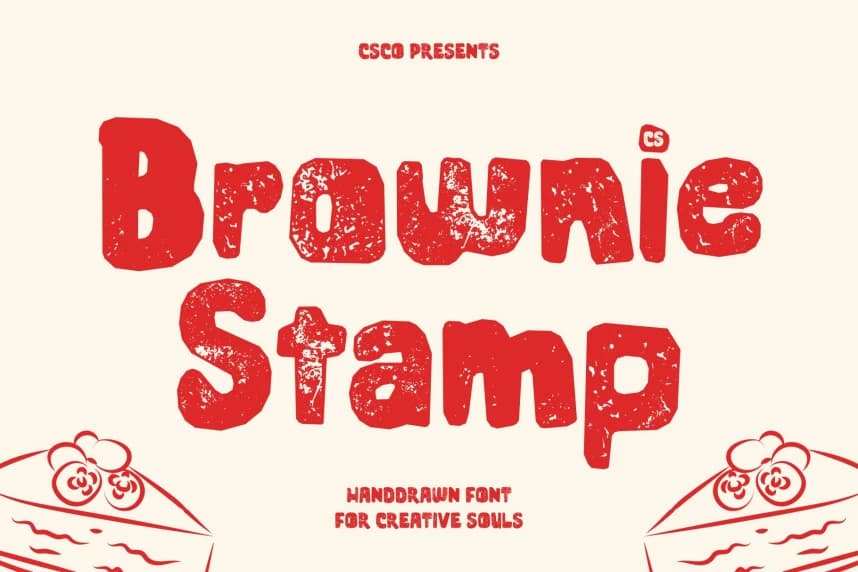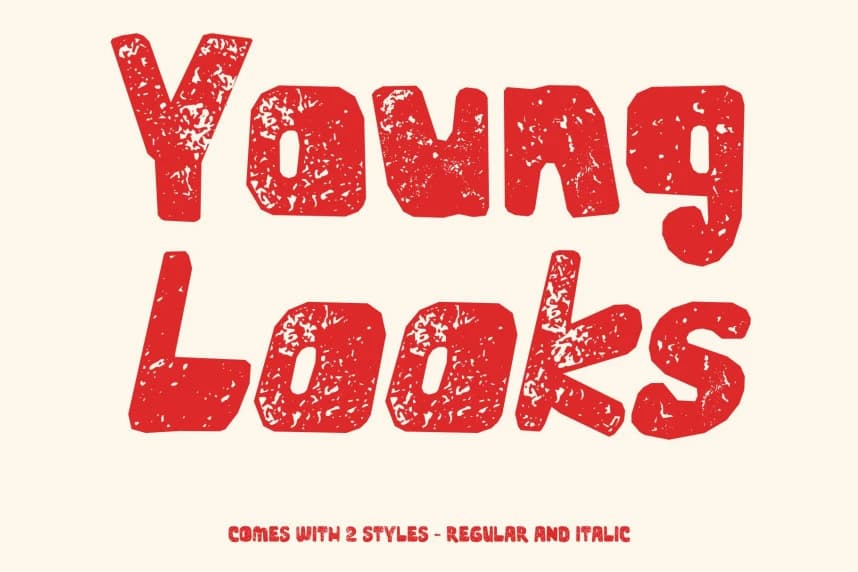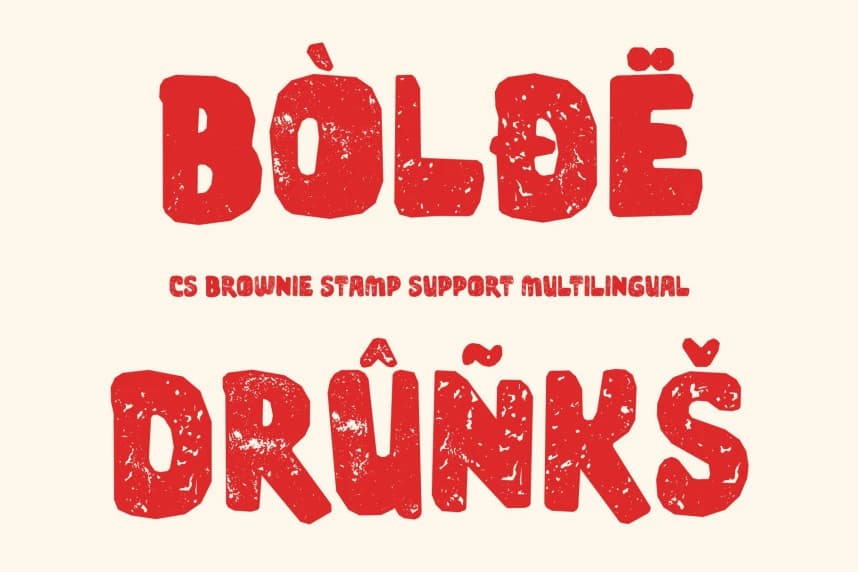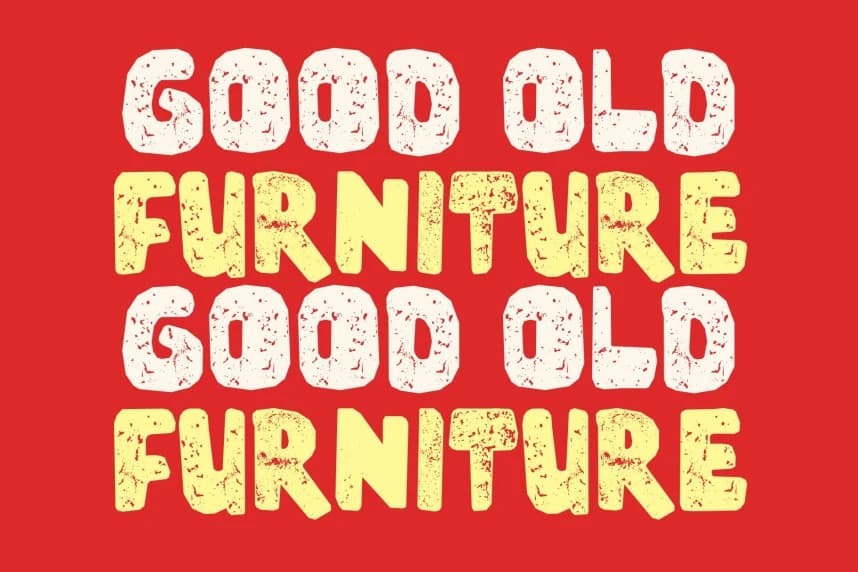
CS Brownie Stamp Font
CS Brownie Stamp Font – Funky Playfulness with Textured Charm A Bold Expression of Joy and Whimsy. This is a modern display font that combines bold presence with cheerful personality.